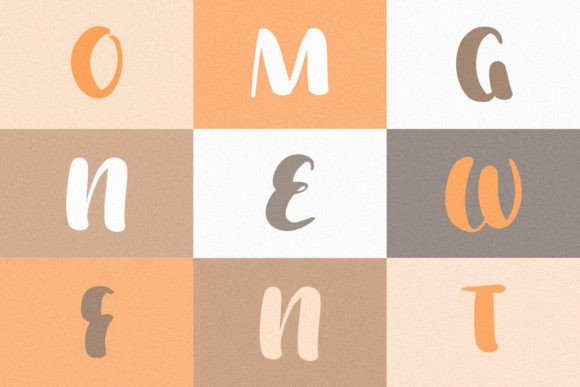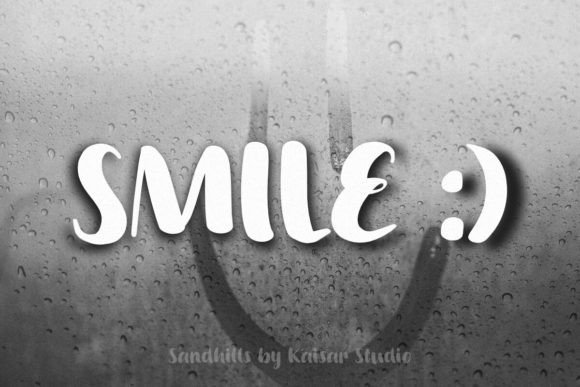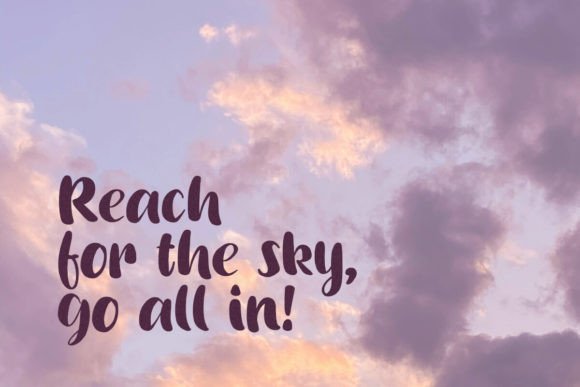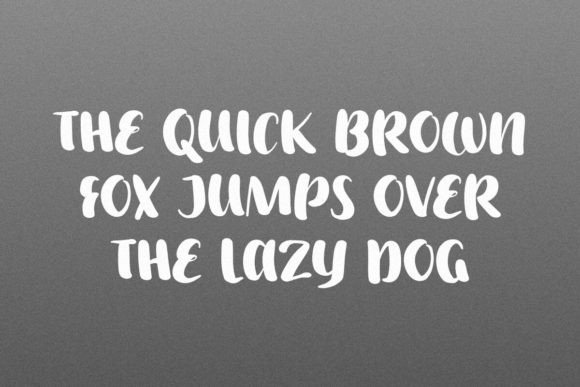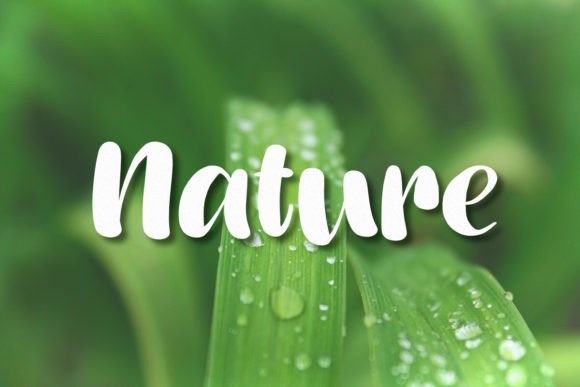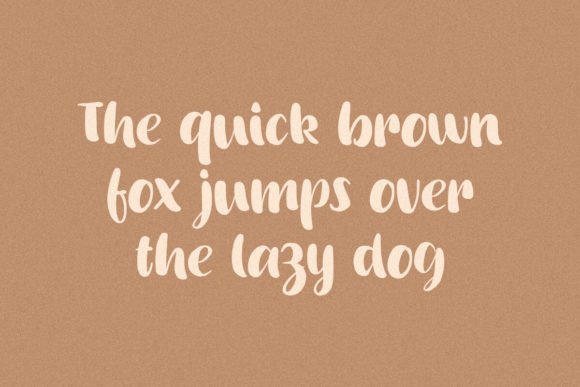
Introduction to Sandhills Font
Have you ever found yourself scribbling down a creative idea on a napkin, only to realize that the perfect font to match your vision is nowhere to be found? This is where the Sandhills Font comes in – a versatile and elegant script that can elevate any design project.
With its beautiful, handwritten feel, the Sandhills Font is perfect for designers looking to add a touch of sophistication to their work. Whether you’re creating a stunning wall display, designing a wedding invitation, or crafting a social media post logo, this font is sure to impress. Its high-quality design makes it an invaluable resource for any creative project, and the best part? It’s available for free download, complete with a transparent background for seamless integration into your designs.
Key Features of Sandhills Font
- Unique blend of modern and vintage elements, making it perfect for creative projects.
- Comes with a transparent background, allowing for easy integration into various design contexts.
- Features a high-resolution design (300 DPI), ensuring crisp and clear text output.
- Designed to be highly legible, even at small font sizes, making it suitable for a wide range of applications.
- Includes a comprehensive character set, covering a wide range of languages and special characters.
Honest Review: Sandhills Font
I recently stumbled upon the Sandhills Font while searching for a design resource to elevate my creative project. I was excited to find it’s a free download, which is always a bonus. The font has a unique, modern aesthetic that’s perfect for contemporary designs.
What works well: ✨ The Sandhills Font has a high quality feel, making it a great addition to any design project. The transparent background feature allows for seamless integration with images and other design elements. I also appreciate the flexibility of the font, which comes in various weights and styles.
Overall, I’m impressed with the Sandhills Font and would definitely recommend it to designers looking for a high-quality, free design resource. Just be aware of the potential limitations and compatibility issues.
- Unique, modern aesthetic
- High quality feel
- Flexible, with various weights and styles
How to Use Sandhills Font
Tips for Getting the Most Out of Sandhills Font
To get the most out of the Sandhills Font, use it in conjunction with a transparent background to create a clean and minimalist design. You can also experiment with different font sizes and styles to create visual interest and depth in your design.
Common Use Cases for Sandhills Font
The Sandhills Font is a versatile design resource that can be used in a variety of creative projects, including logos, business cards, and social media graphics. Its high-quality design makes it an excellent choice for professional and personal projects alike.